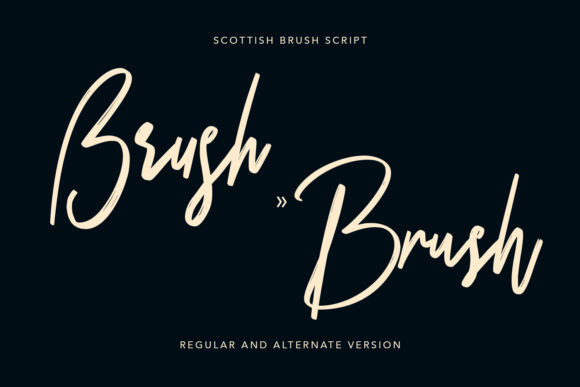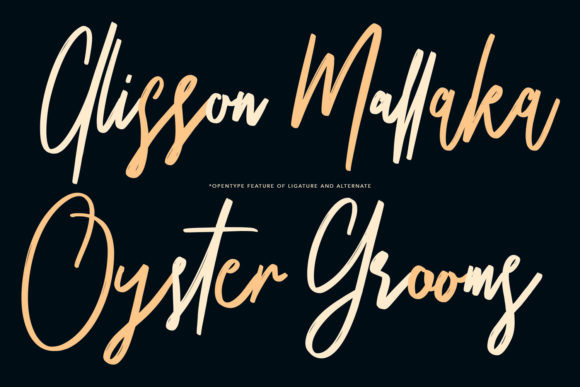
Scottish Font
Scottish is a sweet and flowing brushed handwritten font. Dainty and joyful, this font will be ideal for writing wedding invitations, cards or any other design that may need a romantic, personalized touch!